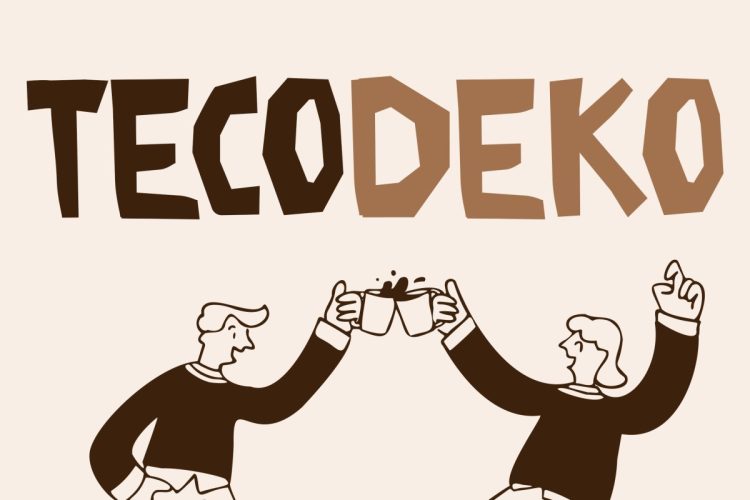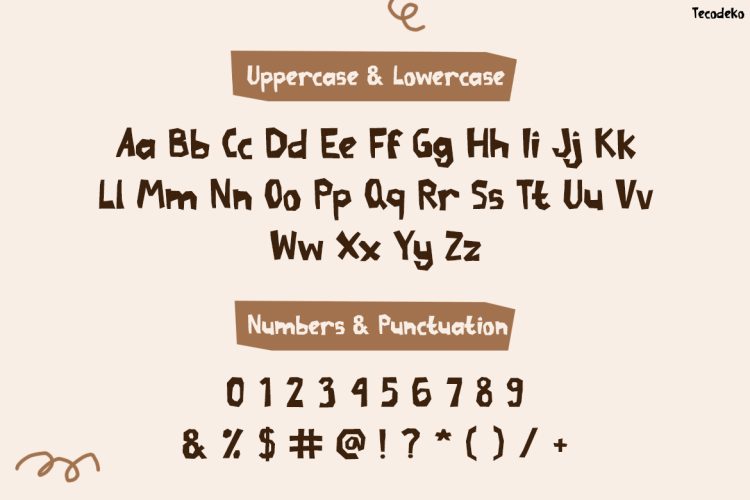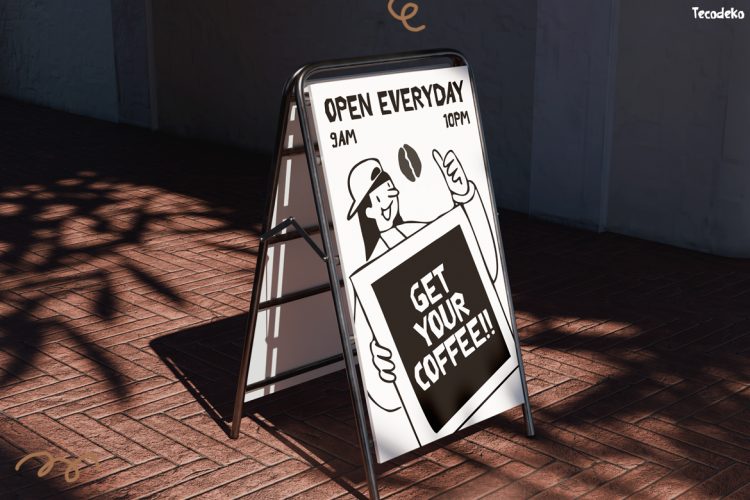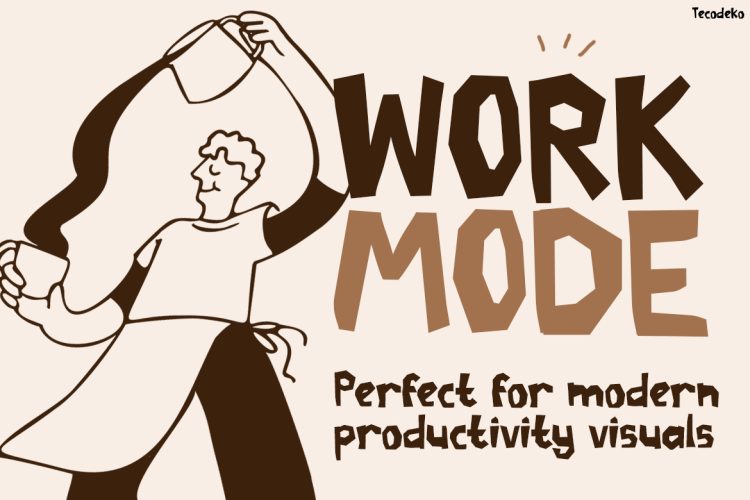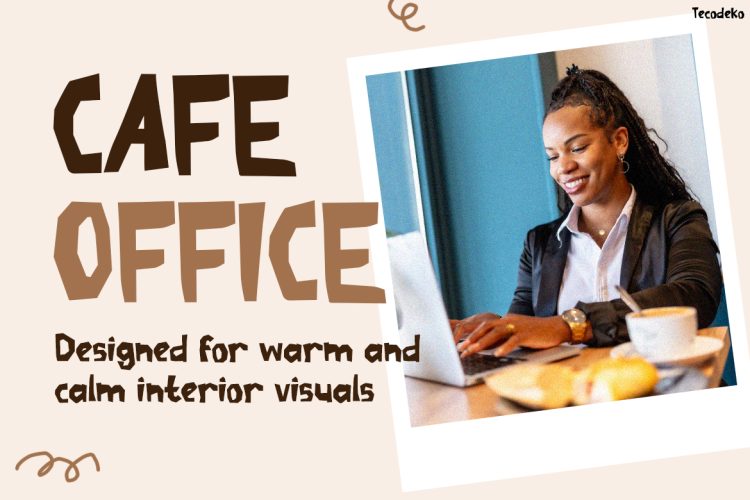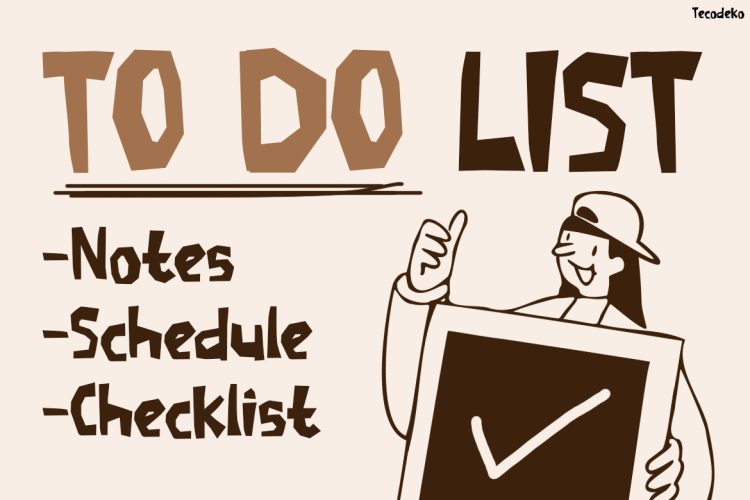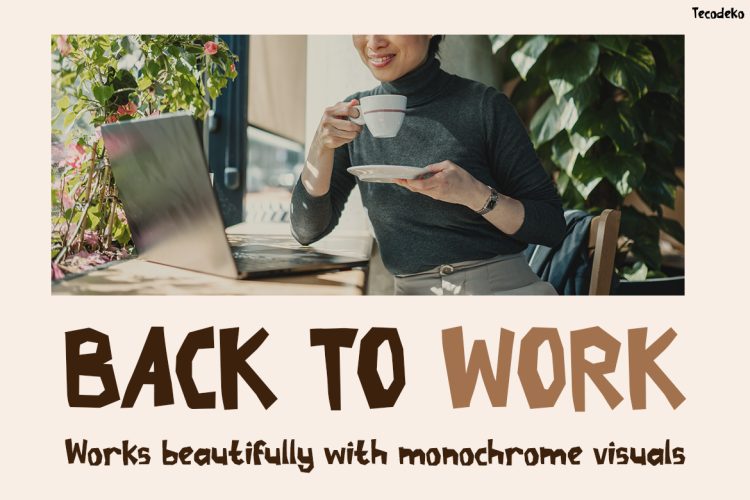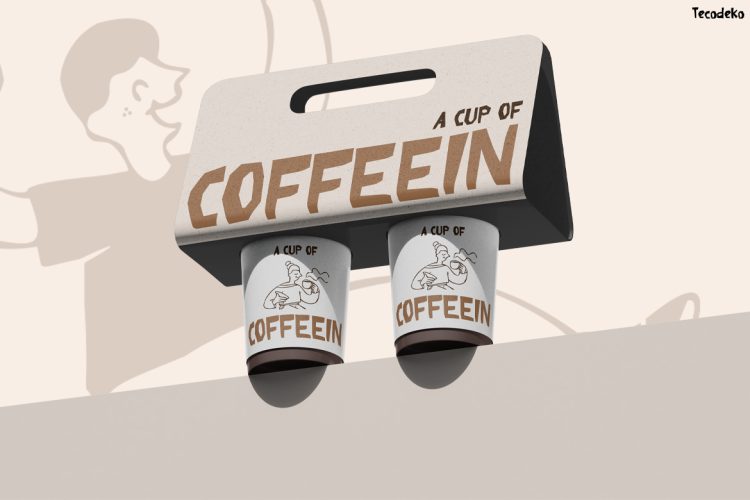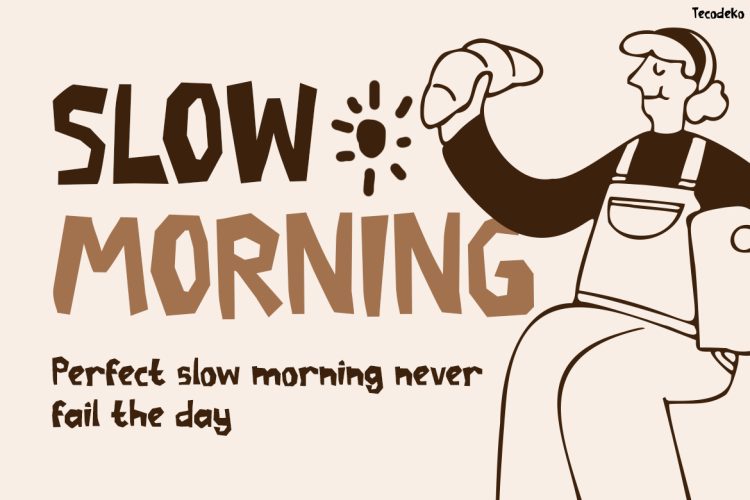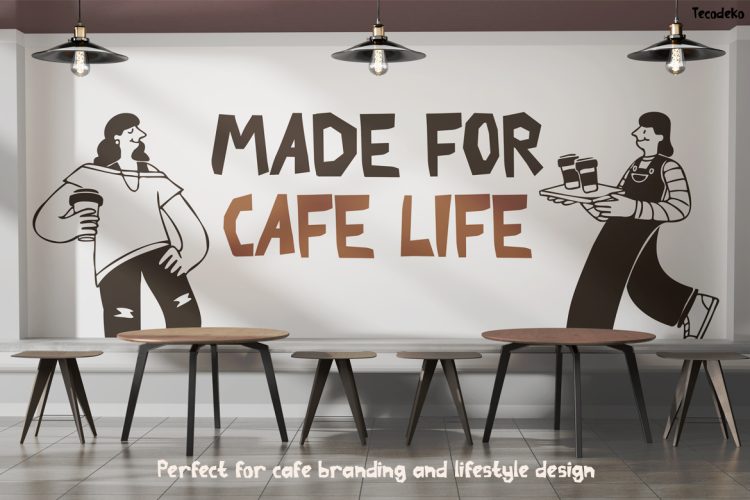
Tecodeko โ Playful Handcrafted Kids Font
Kids Font Tecodeko is a fun, handcrafted typeface that brings warmth, creativity, and a playful charm to every design. Moreover, its irregular shapes and hand-drawn style create a natural, friendly feel that instantly grabs attention. In addition, the soft curves and slightly quirky letterforms make it look authentic and full of personality. Not only is it visually engaging, but it also keeps readability clear, which makes it perfect for both digital and print projects. As a result, this font stands out as a balance between cute aesthetics and practical function.
Kids Font Tecodeko delivers a cozy and creative vibe that fits perfectly with modern lifestyle visuals. For instance, it blends beautifully with cafรฉ themes, work-from-home content, to-do lists, and casual branding. Furthermore, its organic look adds a human touch, making designs feel more relatable and inviting. Because of this, it works great on posters, social media graphics, packaging, and even educational materials. In short, Tecodeko turns simple text into something lively, warm, and full of character.
This font is ideal for designers, small business owners, and content creators who want a friendly and approachable look. In particular, it suits kids-related brands, cafรฉ shops, lifestyle blogs, stationery designs, and creative entrepreneurs. Additionally, anyone looking to create calm, aesthetic, and slightly playful visuals will love using Tecodeko. Therefore, whether you’re building a brand or designing daily content, this font helps you connect with your audience in a more personal way.